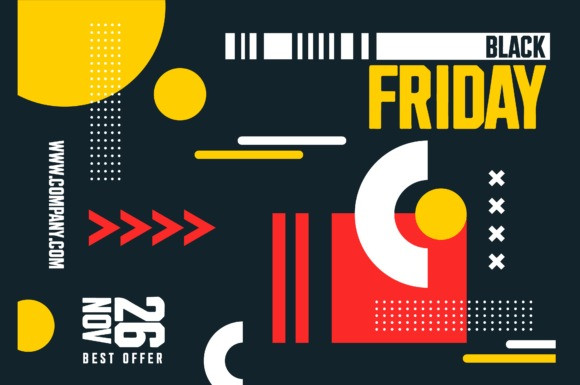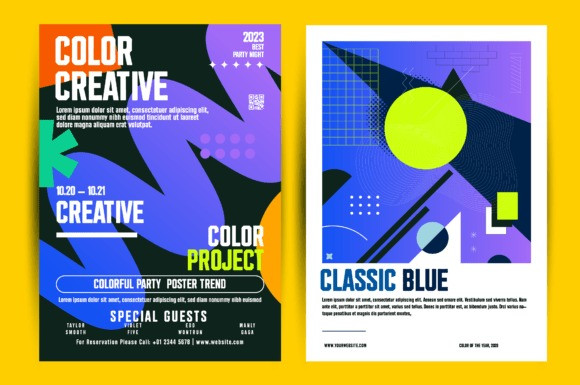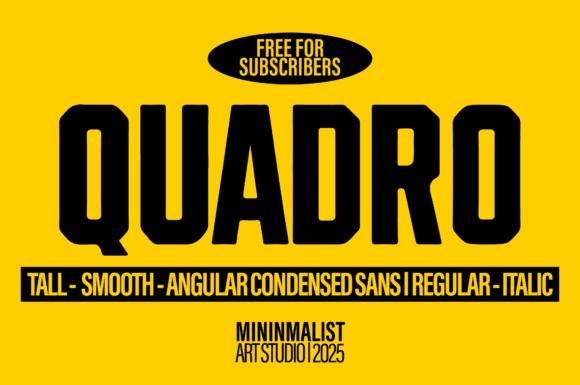
Quadro Font – a tall, smooth, and angular condensed sans serif that blends modern minimalism with striking geometric precision. Its clean lines and refined proportions make it ideal for branding, editorial layouts, posters, packaging, and digital media.
Available in Regular and Italic styles, the Quadro typeface delivers both impact and elegance — perfect for luxury logos, fashion campaigns, magazine headlines, and sleek website headers. The condensed form maximizes space without sacrificing readability, while the smooth curves and sharp angles create a bold yet sophisticated presence.